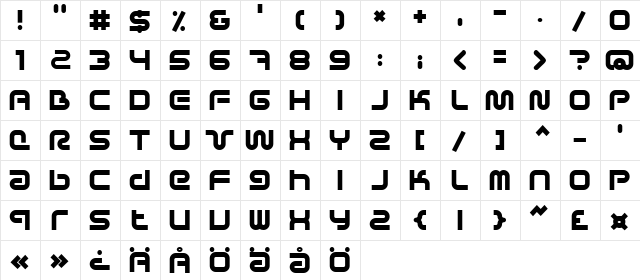
Sci Fied X Bold
Design Context for Sci Fied X Typeface
Sci Fied X channels digital-age aesthetics through its sharp, structured letterforms — ideal for brands that want to signal innovation. The heavy weight commands attention and anchors typographic hierarchies.
Pro Tip: Try Sci Fied X with generous letter-spacing in UI labels and navigation — the geometric forms benefit from room to breathe.